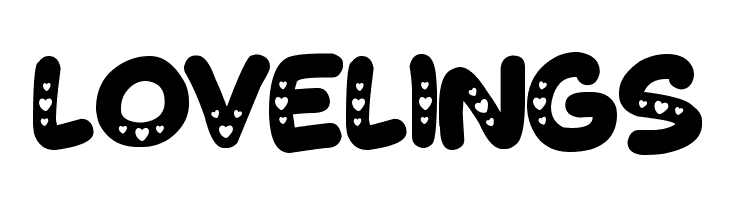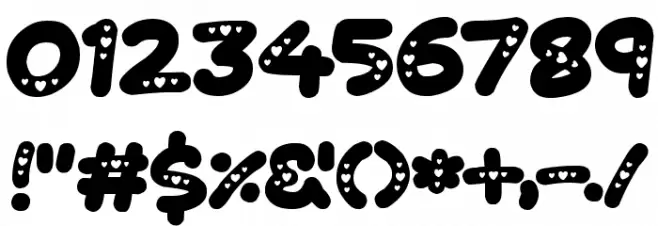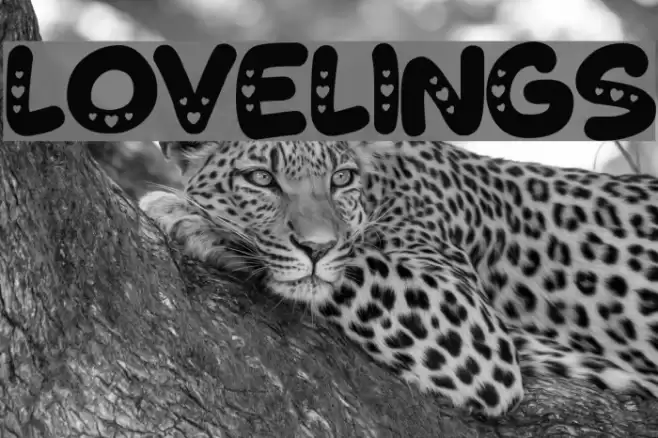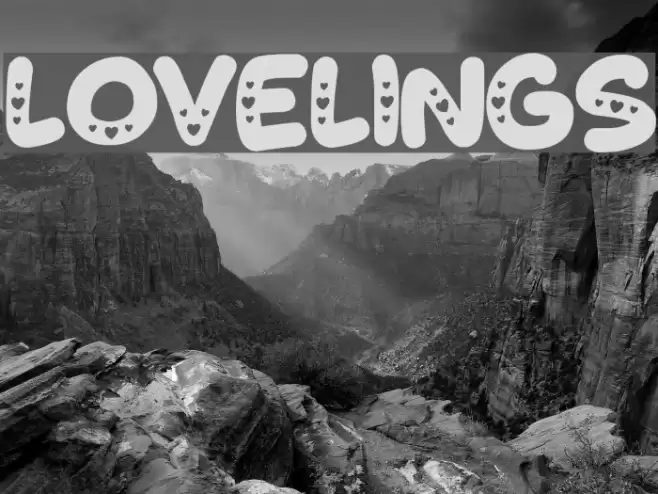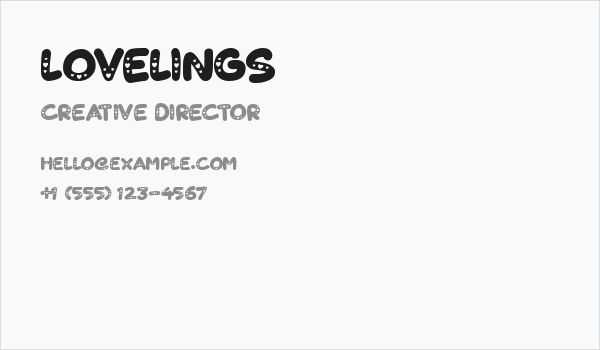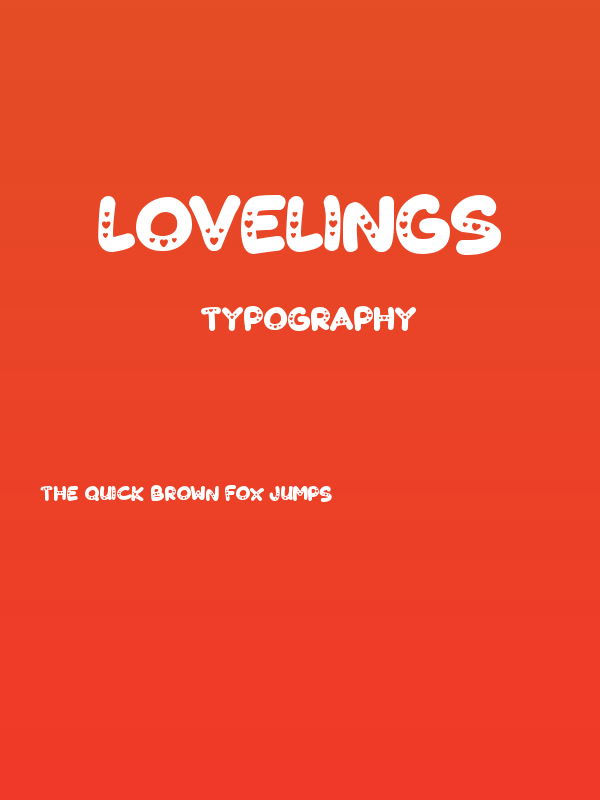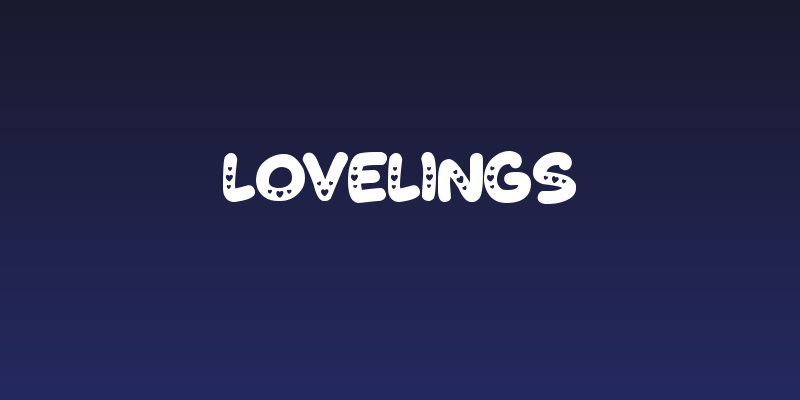
Lovelings Font
Lovelings Description
This playful and whimsical font features bold, rounded characters adorned with small heart shapes, giving it a charming and affectionate appearance. The letters are consistent in their bubbly form, with a smooth and even stroke width that maintains a cohesive look across both uppercase and lowercase alphabets. The numbers and special characters follow the same design principles, ensuring a uniform style throughout. This font exudes a sense of fun and lightheartedness, making it ideal for projects that aim to convey warmth and friendliness.
| Proposed Projects | Ideal for children's books, greeting cards, playful branding, and Valentine's Day promotions. |